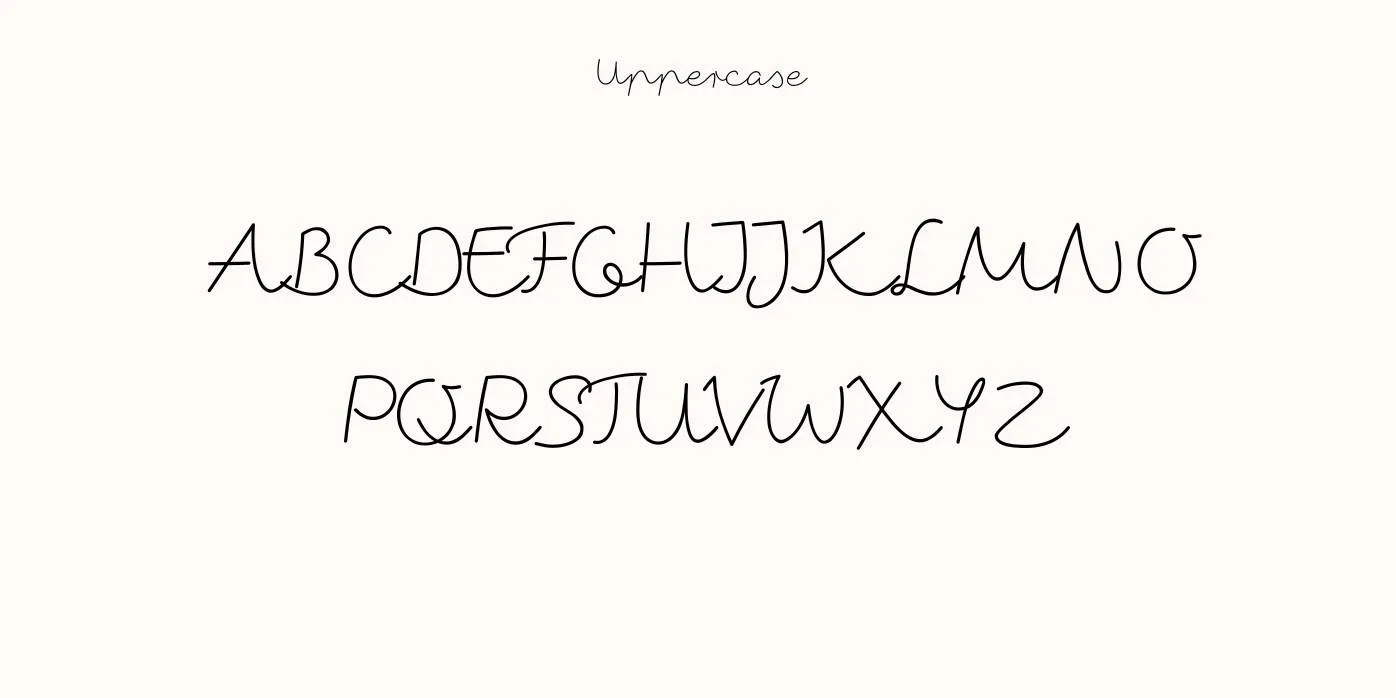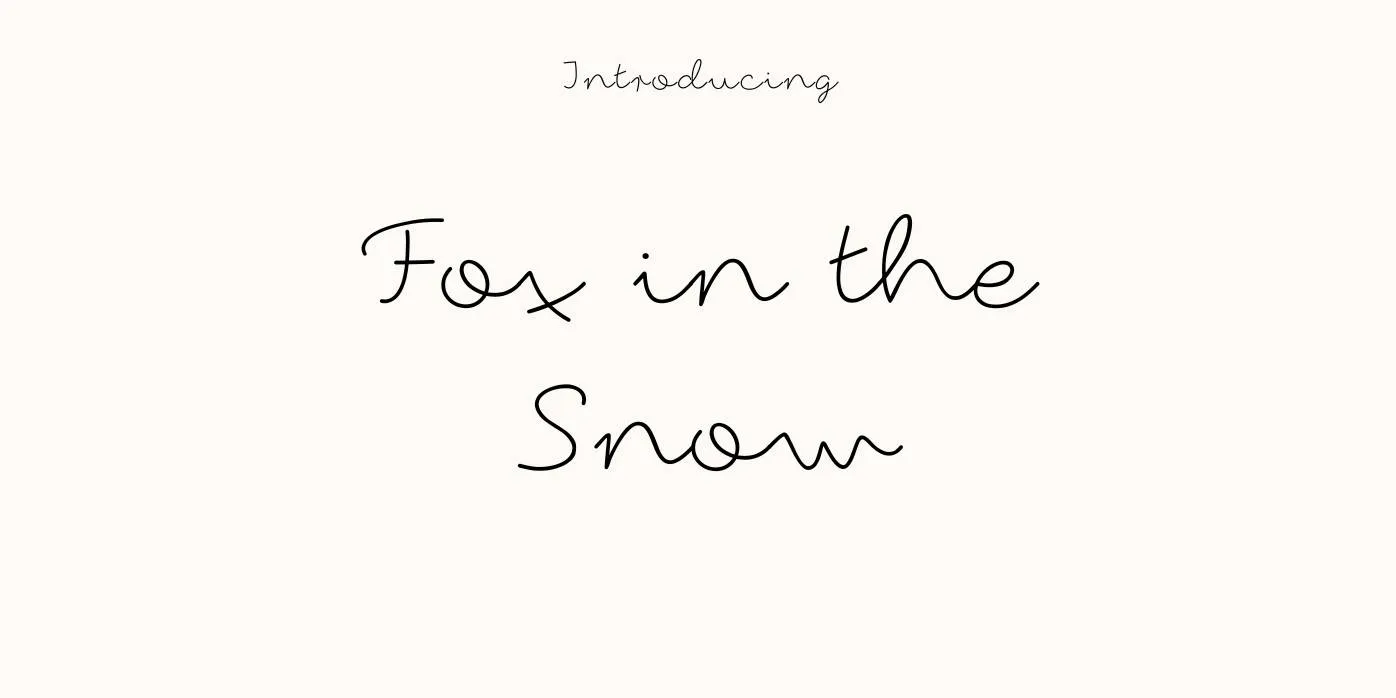
Fox In The Snow Font
Introducing you to an amazing texture named Fox In the Snow that belongs to a handwritten family. Roland Huse Design is the designer of this typeface. This handwritten typeface has fragile and thin characters. The font has a lot of features and properties.